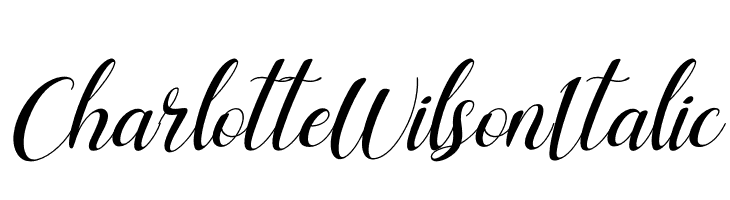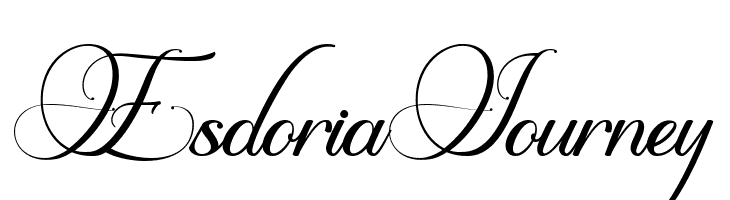
A decorative script font with elegant swirls and a luxurious feel.
A sophisticated script font with elegant swashes and flowing cursive letters.
A classic, elegant script font with flowing, cursive letterforms and medium contrast.
An elegant, flowing script font with intricate loops and flourishes.
An elegant, flowing script font with a calligraphic style.
An elegant script font with flowing, interconnected letterforms and elaborate swashes.
A flowing, elegant cursive font with seamless character connections.
An elegant, flowing script font with a refined, italic style.